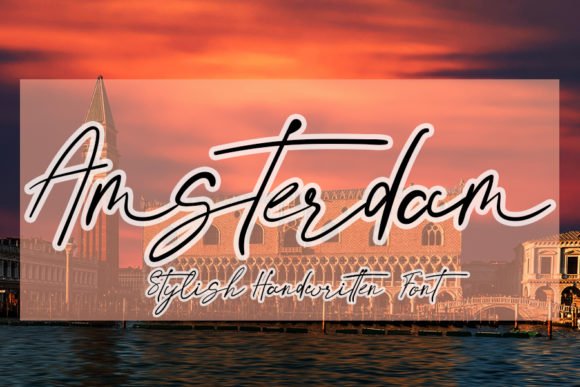
The Perfect Blend of Simplicity and Style: Introducing the Amsterdam Font
As a designer, there’s nothing quite like the thrill of stumbling upon the perfect font to elevate your project. You’ve spent hours browsing through endless options, and then, suddenly, you see it – a font that speaks directly to your creative soul. For many, that font is the Amsterdam Font. This charming, handwritten script has captured the hearts of designers and artists alike with its effortless charm and versatility.
The Amsterdam Font is designed to evoke the carefree spirit of the Dutch capital, and its simplicity is what makes it so valuable to designers. With its smooth lines and elegant flair, it’s perfect for creating stunning designs that exude a sense of relaxed sophistication. Whether you’re working on a branding project, a poster, or a wedding invitation, the Amsterdam Font is sure to bring a touch of magic to your work.
Key Features of Amsterdam Font
- Unique Characteristics: Amsterdam Font features a unique blend of modern and classic elements, with subtle flair and elegance.
Designer Review: Amsterdam Font
Amsterdam Font is a unique and quirky font that I have had the pleasure of working with. One thing that really stands out to me is its versatility ✨. It works beautifully for both digital and print projects, and its distinctive character makes it perfect for designs that need a bit of personality.
Another aspect that I appreciate about Amsterdam Font is its excellent legibility ✨. Even at smaller sizes, the font remains clear and easy to read, which is crucial for any design that requires a lot of text. Additionally, its OpenType features allow for some really interesting and creative typographic possibilities ✨.
- ⚠️ Not ideal for body text: While Amsterdam Font works well for headlines and titles, it may not be the best choice for large blocks of body text due to its unique character and potential readability issues.
Overall, I would say that Amsterdam Font is a great addition to any designer’s toolkit, but it’s not a one-size-fits-all solution. With its unique personality and excellent legibility, it’s perfect for projects that need a bit of flair, but may not be the best choice for more straightforward or text-heavy designs.
The Amsterdam Font is ideal for creating elegant and sophisticated designs, such as:
- Magazine and book covers
- Restaurant and cafe menus